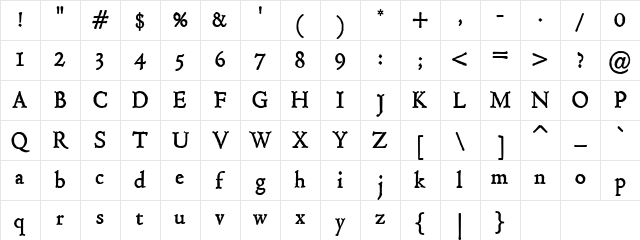
!Basket of Hammers Bold Free Font
!Basket of Hammers Bold
Foundry: !Exclamachine Type Foundry
Designer: Choz Cunningham
Design Context for !Basket of Hammers
!Basket of Hammers is a composed and adaptable typeface that performs quietly and consistently across a wide range of design contexts. Its bold stroke weight gives it real presence on the page.